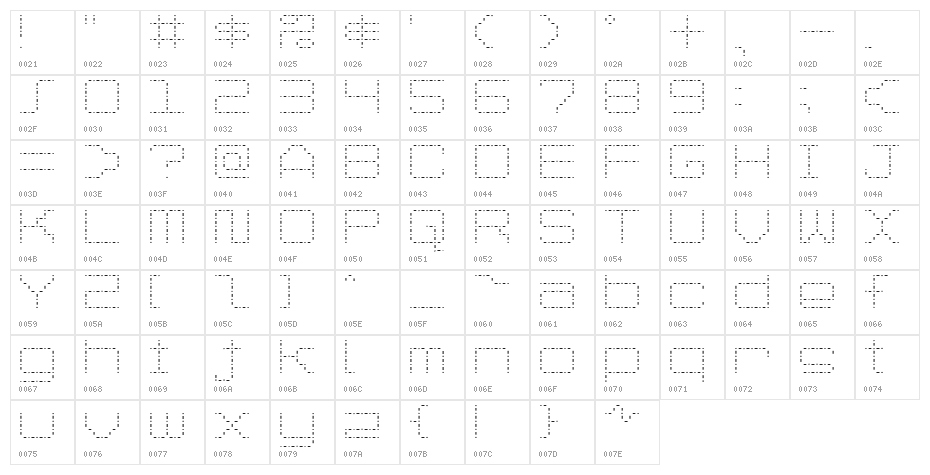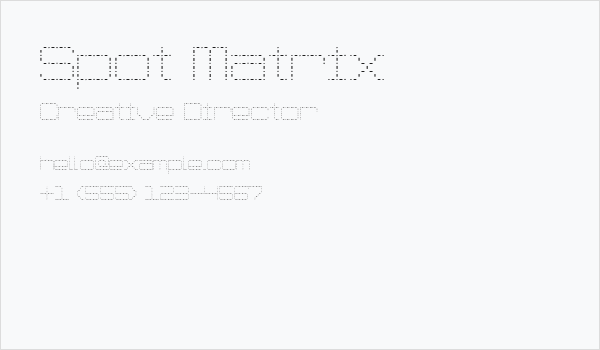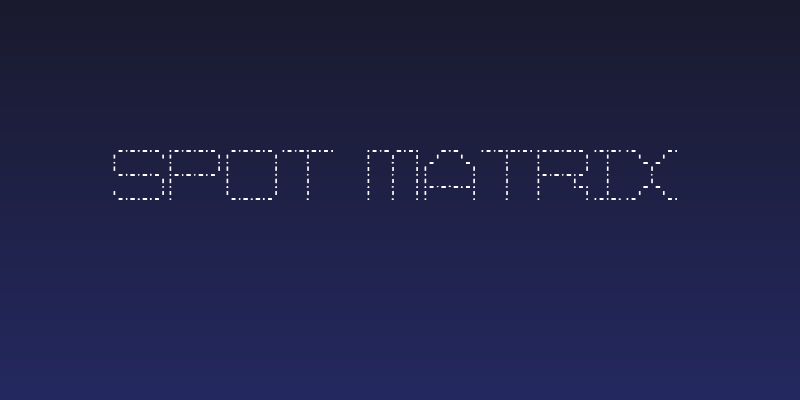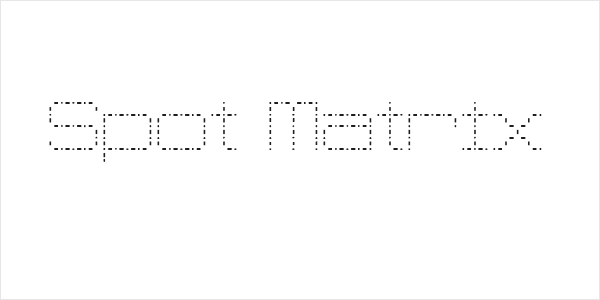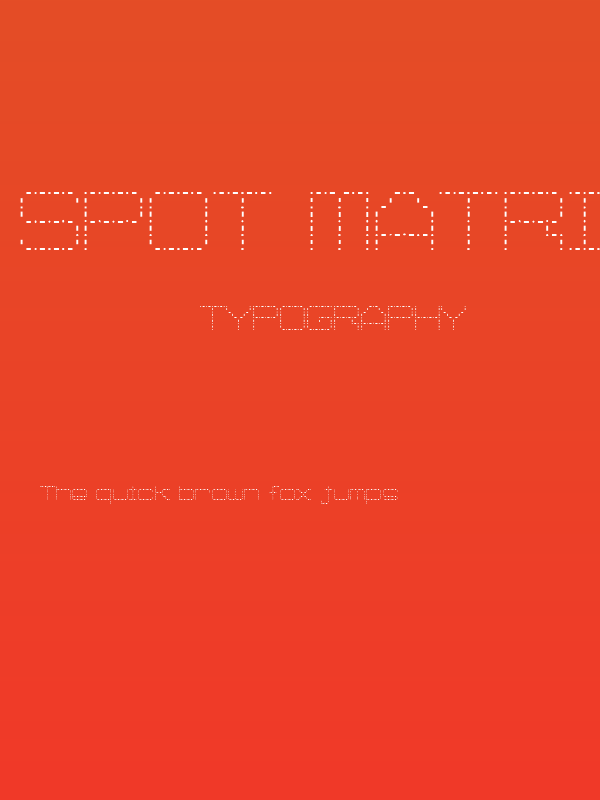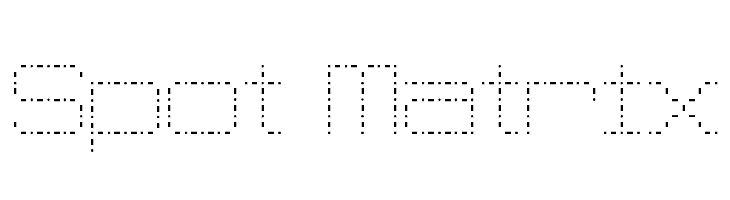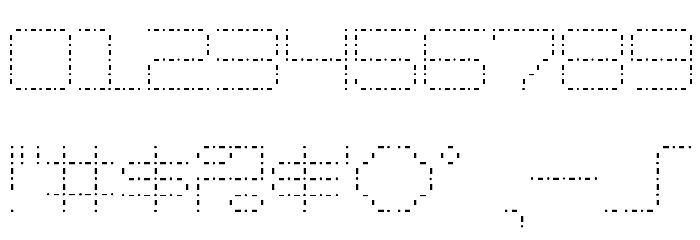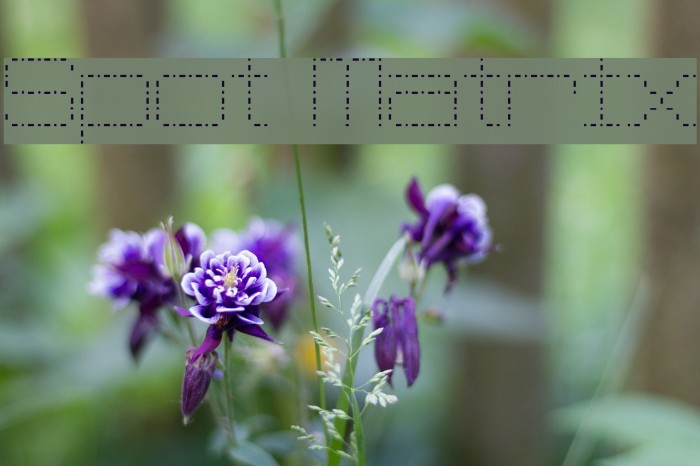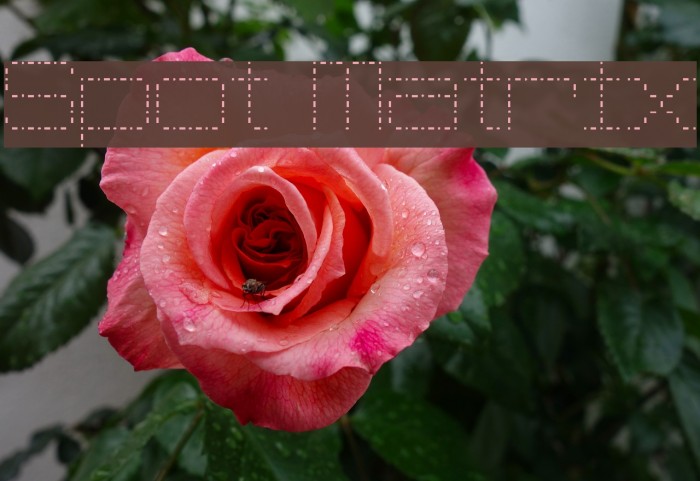
Spot Matrix Font
Spot Matrix Description
This font features a unique dot matrix design, reminiscent of old digital displays and printers. Each character is formed by a series of evenly spaced dots, creating a pixelated effect that is both retro and modern. The uppercase and lowercase letters maintain a consistent height and width, providing a uniform appearance. Numbers and special characters follow the same dot pattern, ensuring readability and consistency across all elements. The overall look is clean and minimalistic, making it suitable for digital-themed projects.
| Overall Style | Retro, Modern |
| Use Case | Logos, Headlines, Digital displays |
| Proposed Projects | Ideal for digital art, retro-themed designs, tech-related branding, and any project requiring a vintage digital look. |